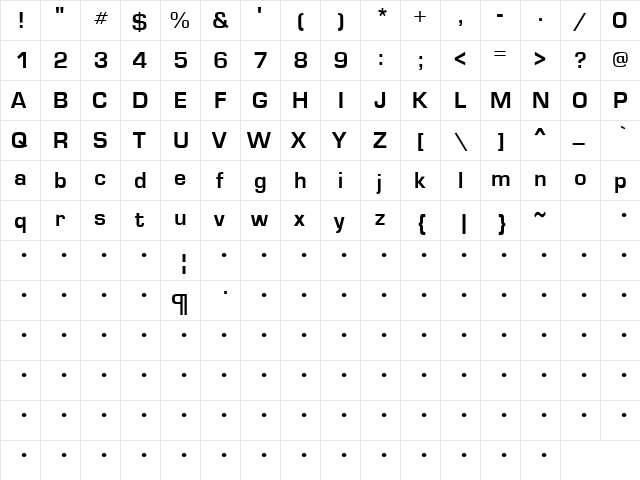
QTEurotype Bold Font Preview
QTEurotype Bold
Design Context for QTEurotype Typeface
QTEurotype offers clean, dependable letterforms without strong stylistic allegiance, making it a practical choice for designers who need flexibility. Its bold stroke weight gives it real presence on the page.